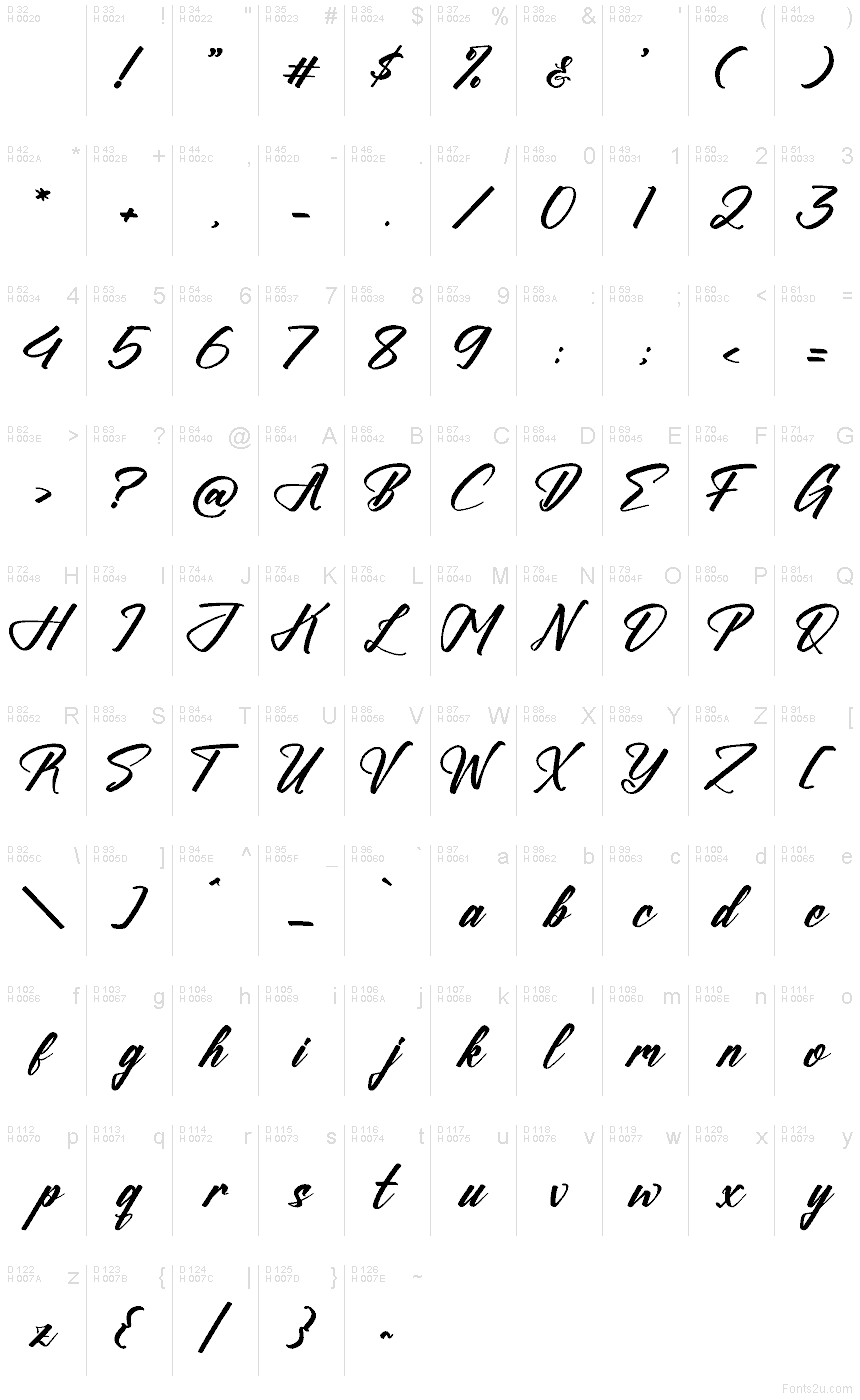
Huntesla Gloficka
Huntesla Gloficka font designed by Letterena Studios is a modern, yet classic, calligraphy font. Carefully crafted to bring your design to the highest level, this elegant typeface with its flowing curves and expressive italic forms works beautifully for digital and print designs alike.
It’s popular in invitations, greeting cards, logotypes, branding, packaging design, book covers/titles, social media posts (Instagram in particular), wedding stationery projects (e.g., ceremony programs), magazines (headers/sub-headers), clothes/fashion products advertising texts etc.